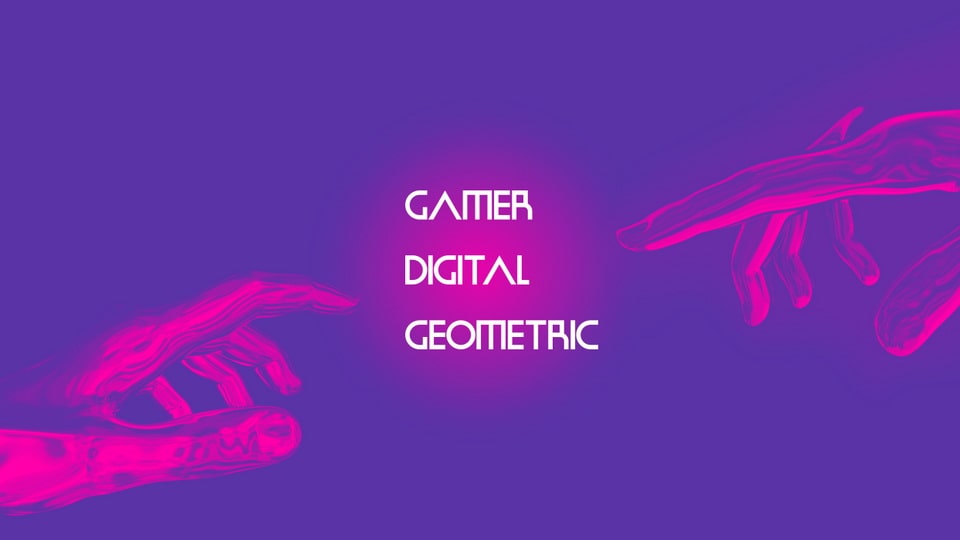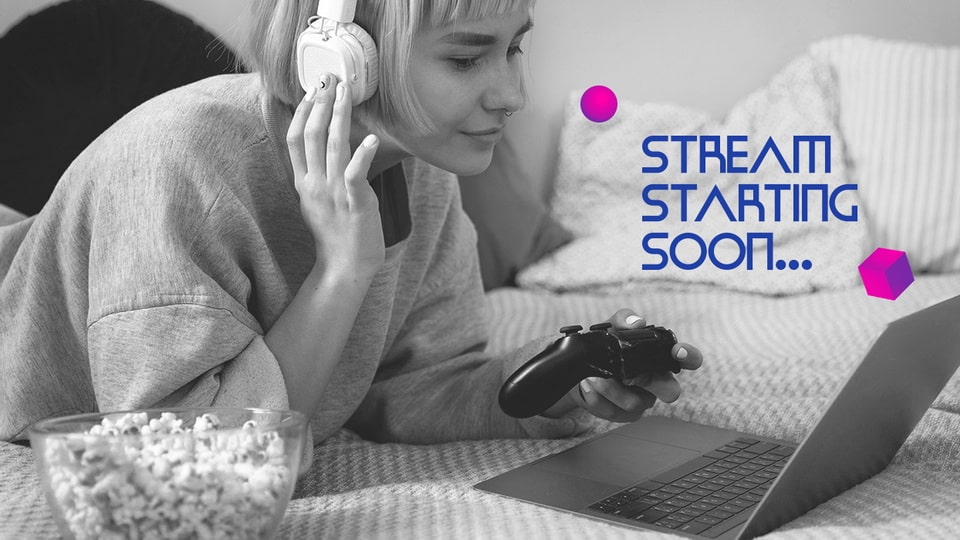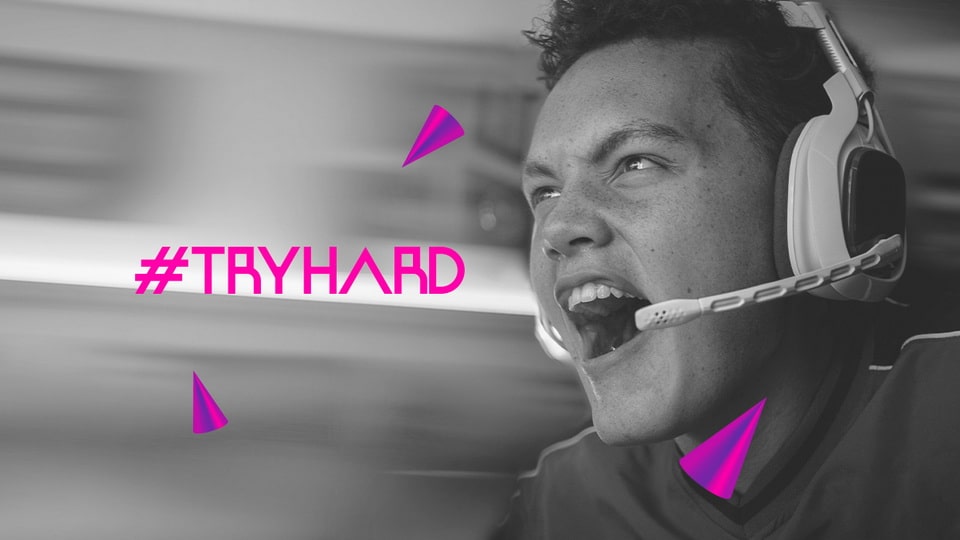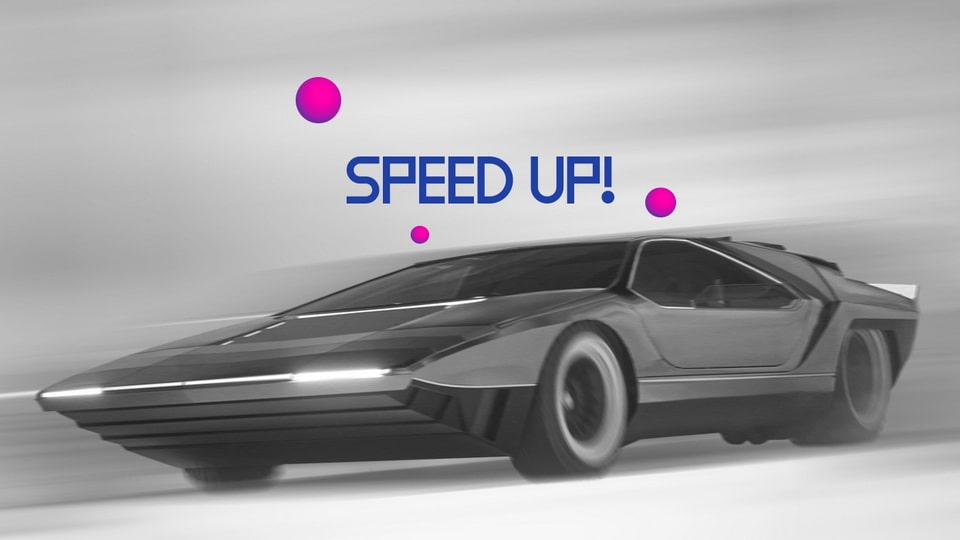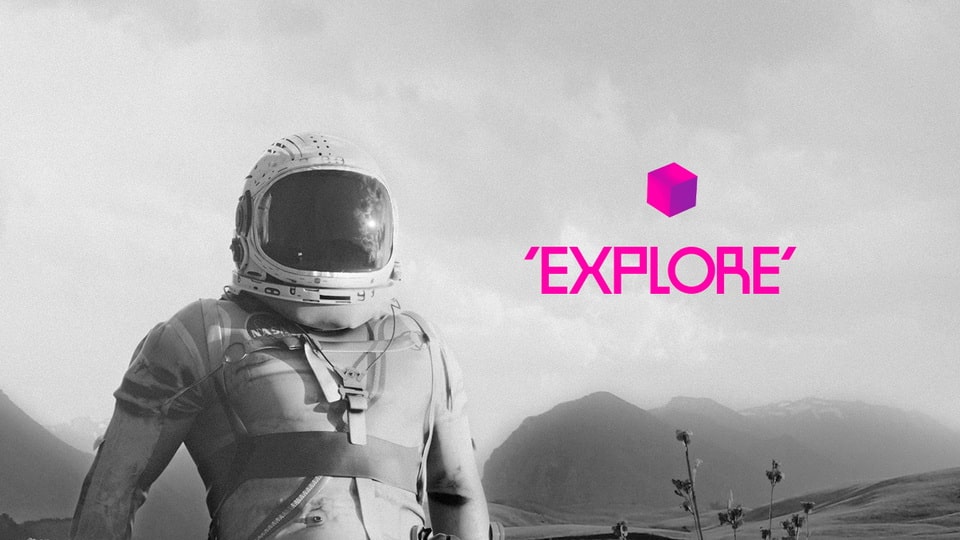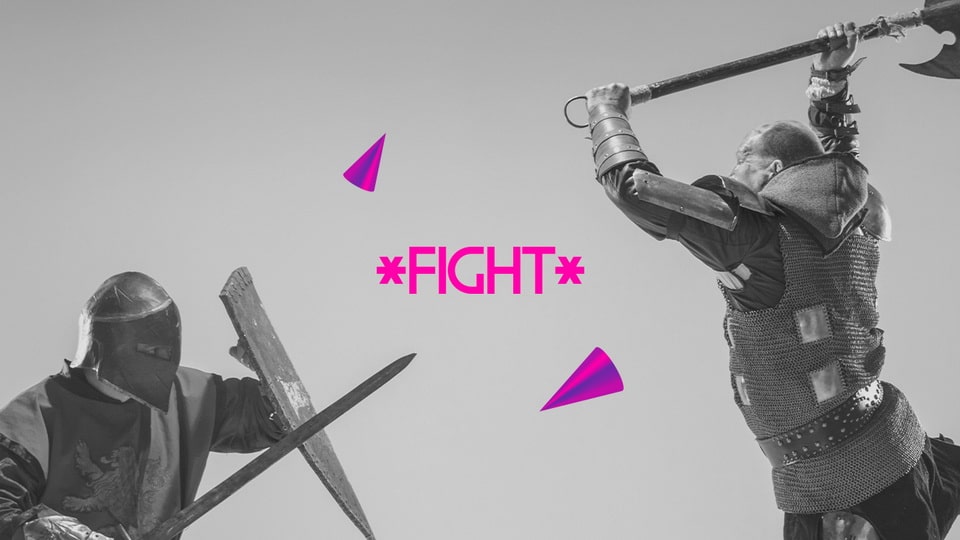
Combo Capital is a display sans serif typeface that combines geometric shapes and digital aesthetics, influenced by video games and internet culture. Combo Capital express through its clean lines a futuristic, energetic and bold feel.